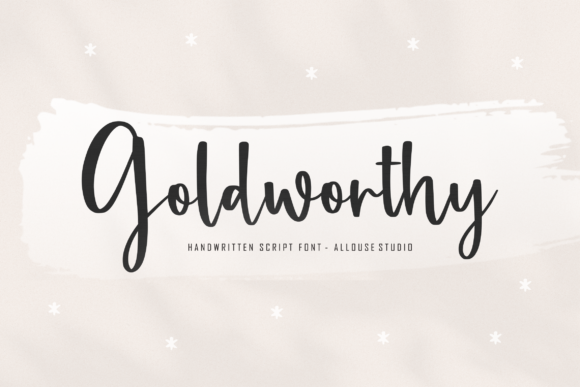
Behold, Goldsworthy, the modern handwritten script font with an aura of natural elegance and a stylish flair. This font has a captivating personality that brings your projects to life, making them stand out in a world of ordinary typography.
Goldsworthy is not just another font; it's an experience. Its versatile style seamlessly blends charm and sophistication, adding a handcrafted touch to each letter. Its flowing lines and graceful curves create a lively and authentic look that perfectly complements wedding invitations, thank you cards, quotes, greeting cards, logos, business cards, and any design that yearns for a personalized touch.
Step into a realm of creativity where Goldsworthy transforms your words into captivating art. Whether you're a designer seeking a touch of elegance or an individual seeking a unique self-expression, Goldsworthy is your perfect companion. It effortlessly elevates ordinary text into a symphony of visual allure, making every word a work of art.
With Goldsworthy, you're not just downloading a font; you're embracing an experience of beauty and originality. It's the font that speaks to your soul, capturing your emotions and transforming them into mesmerizing typography. Each letter dances across the page, leaving a trail of enchantment that captivates and inspires.
So, if you're ready to embark on a creative journey like no other, let Goldsworthy be your guide. Enter the world of captivating typography and unleash the power of your imagination. Let your words flow with grace and elegance, and let Goldsworthy transform them into something truly extraordinary.